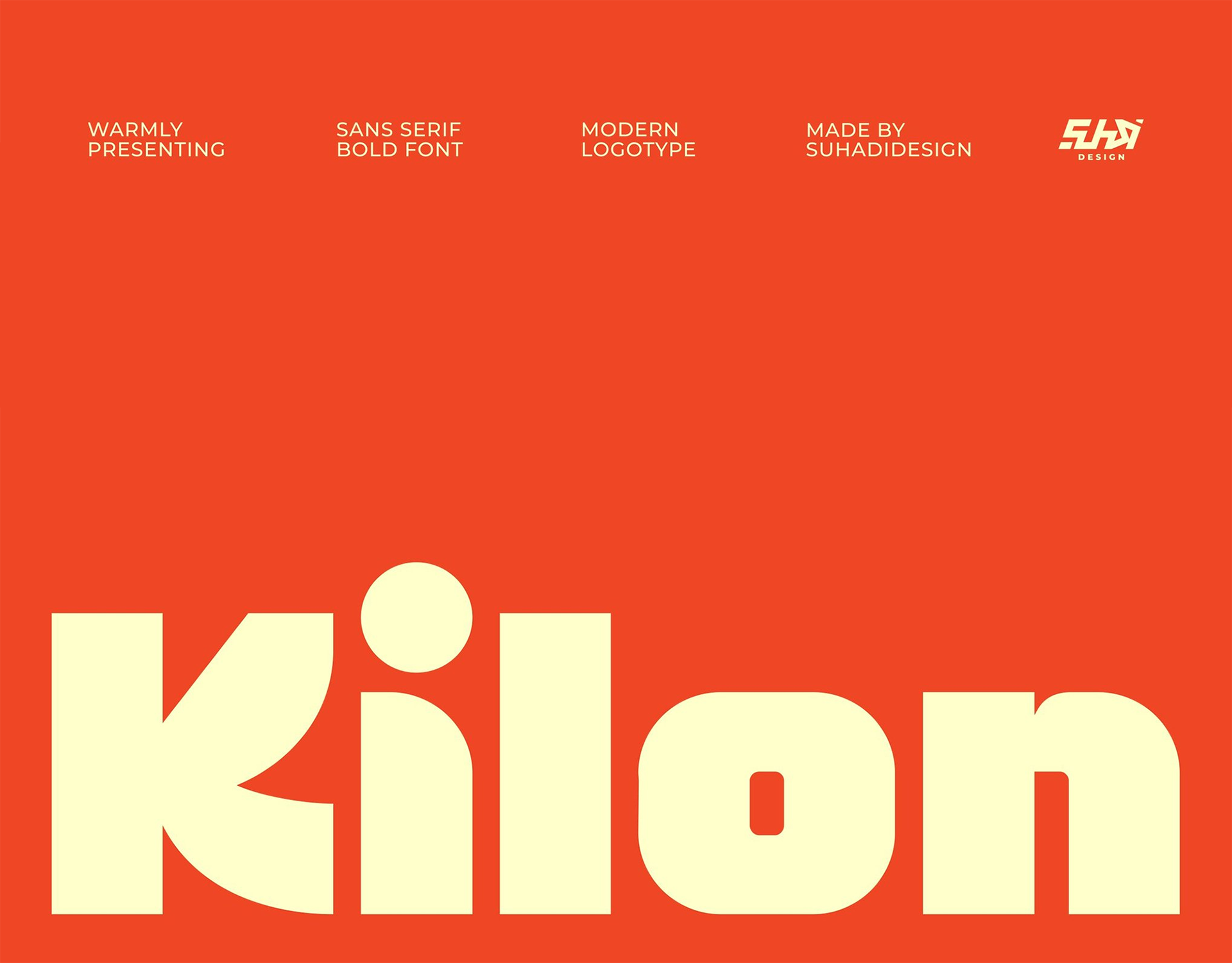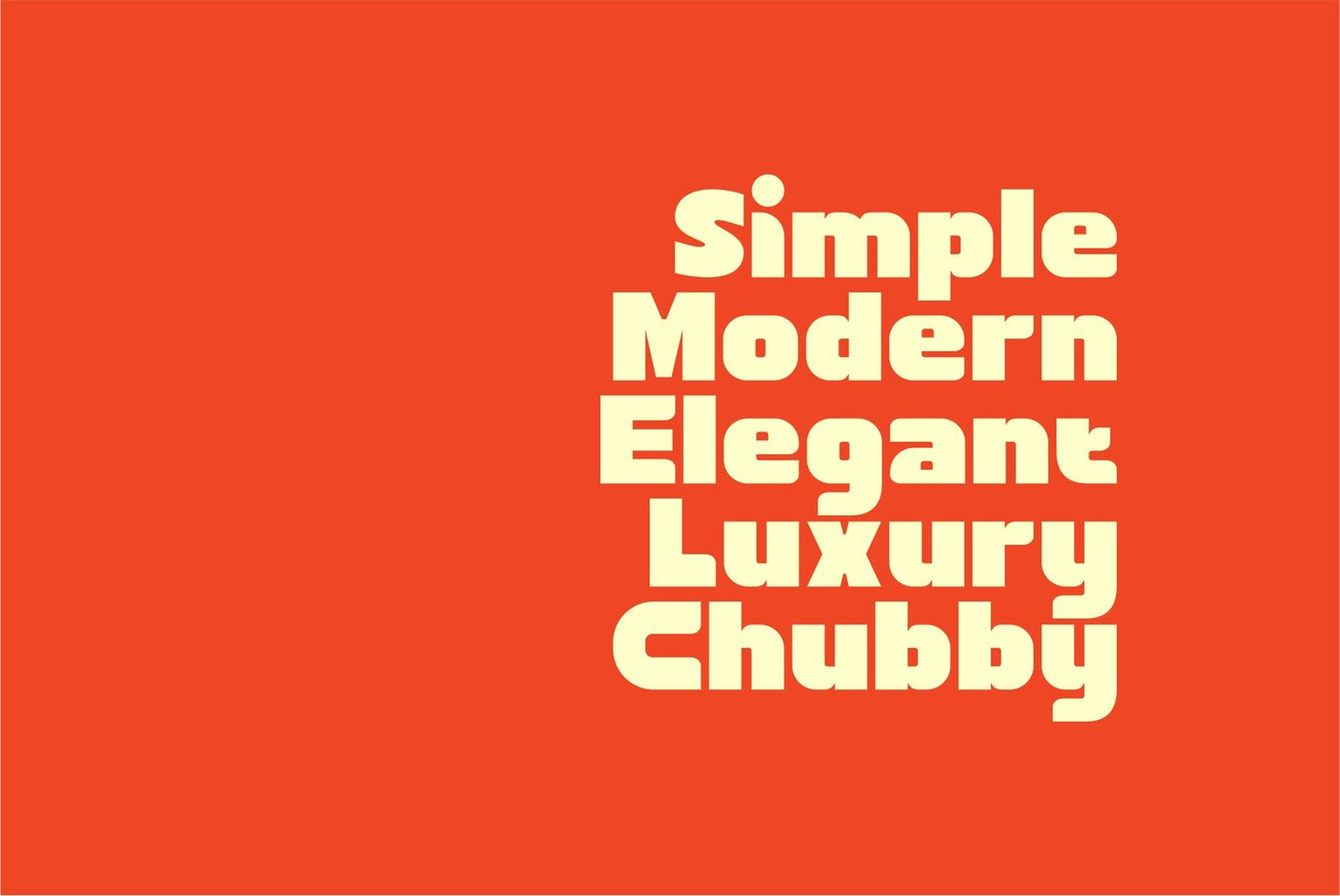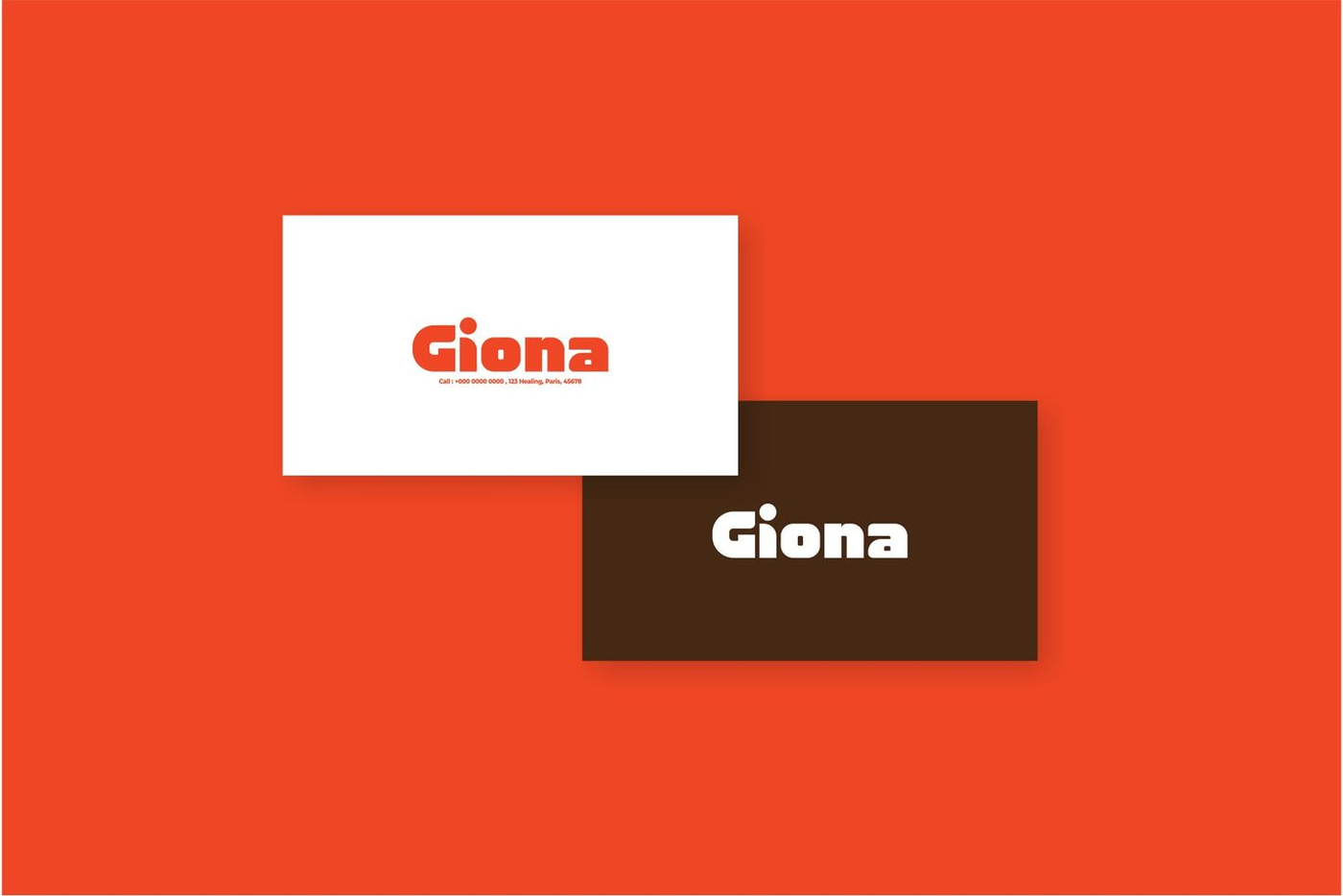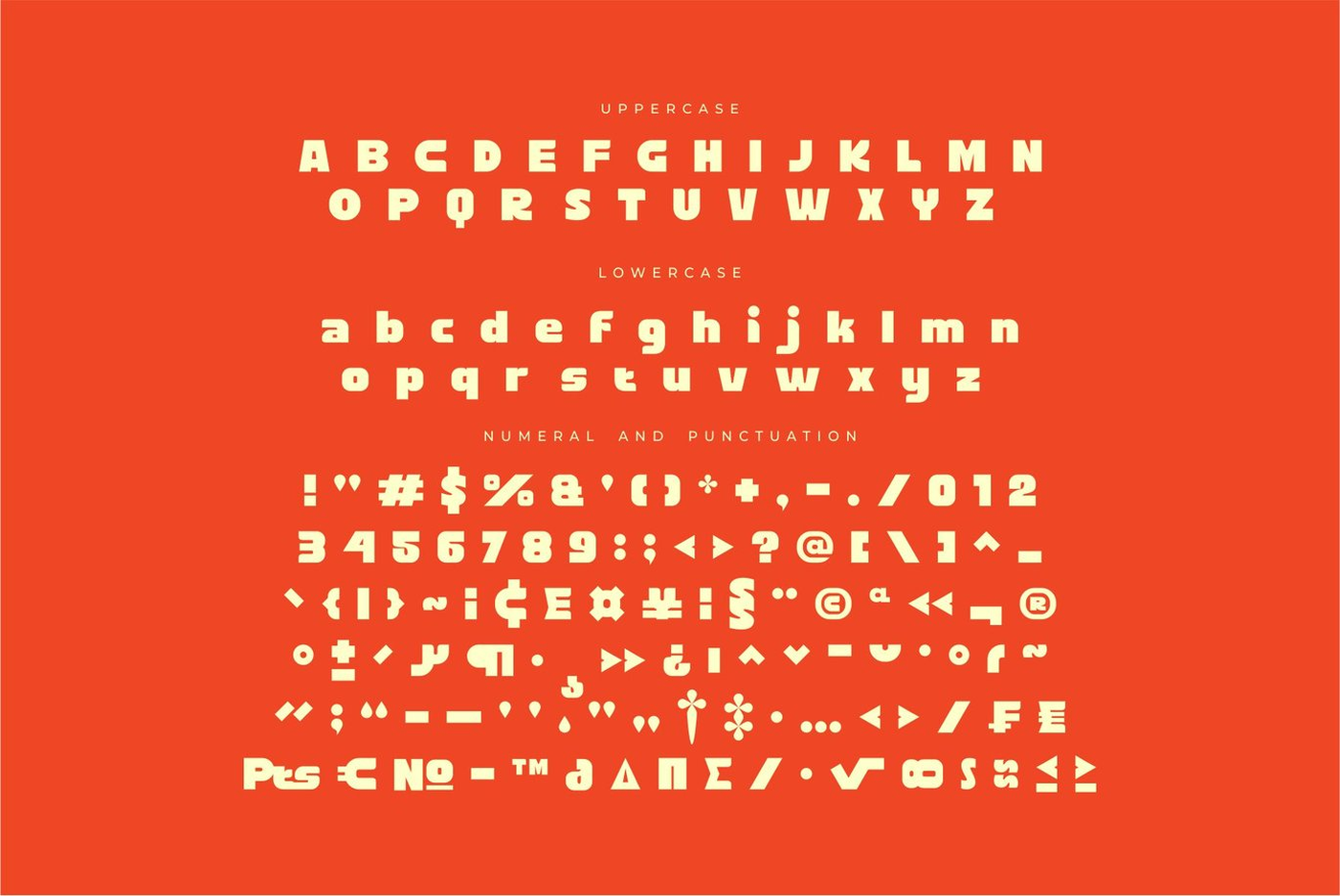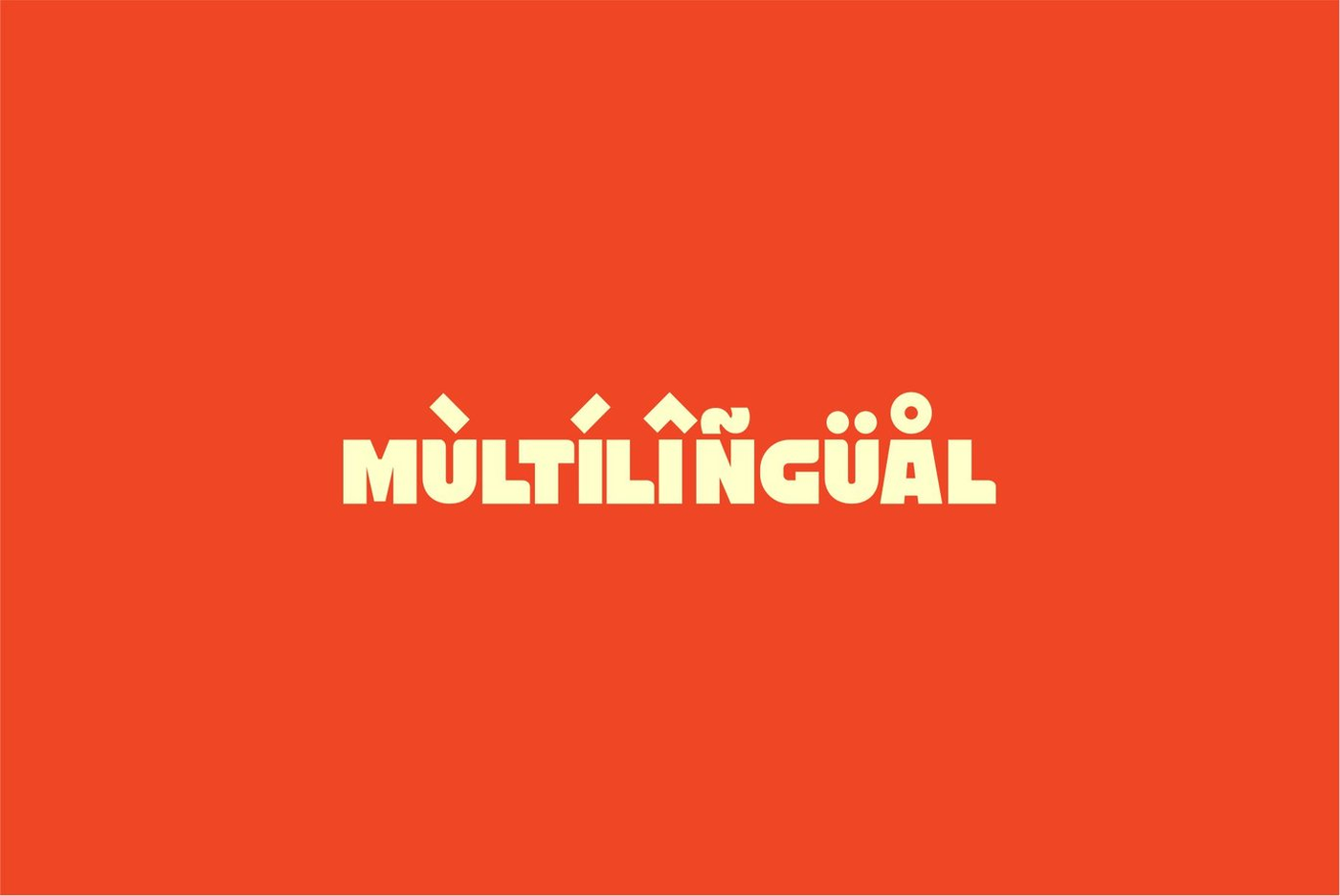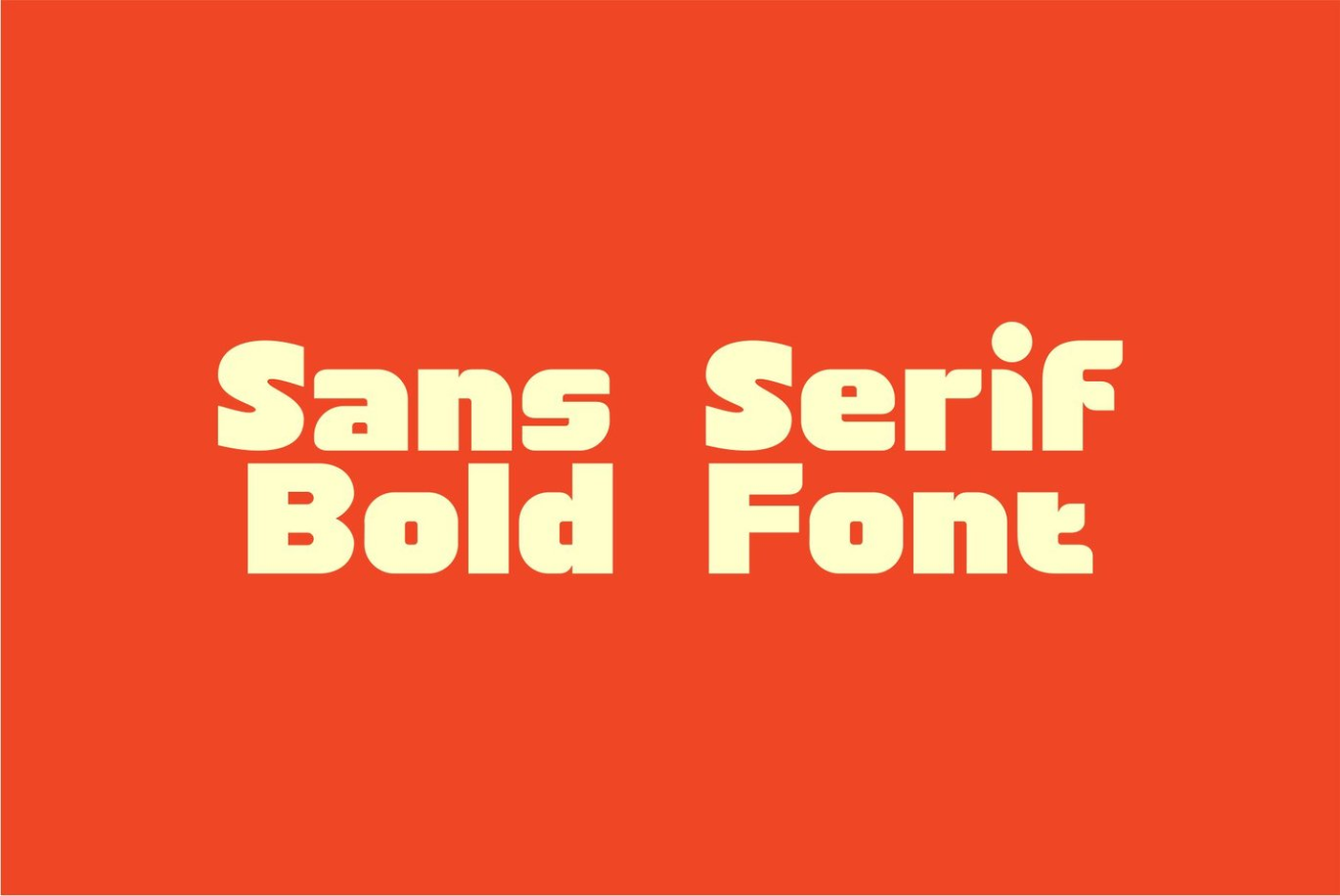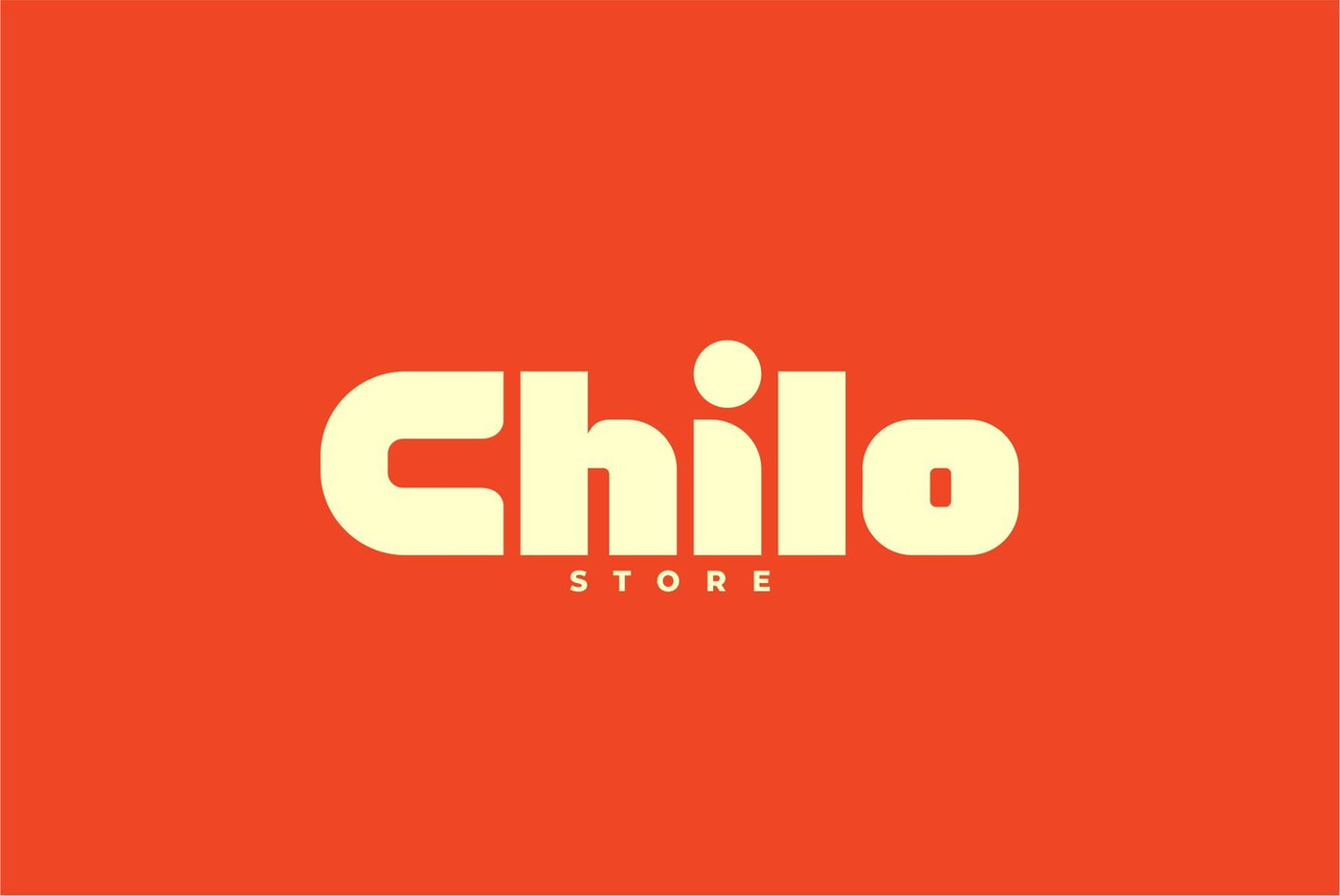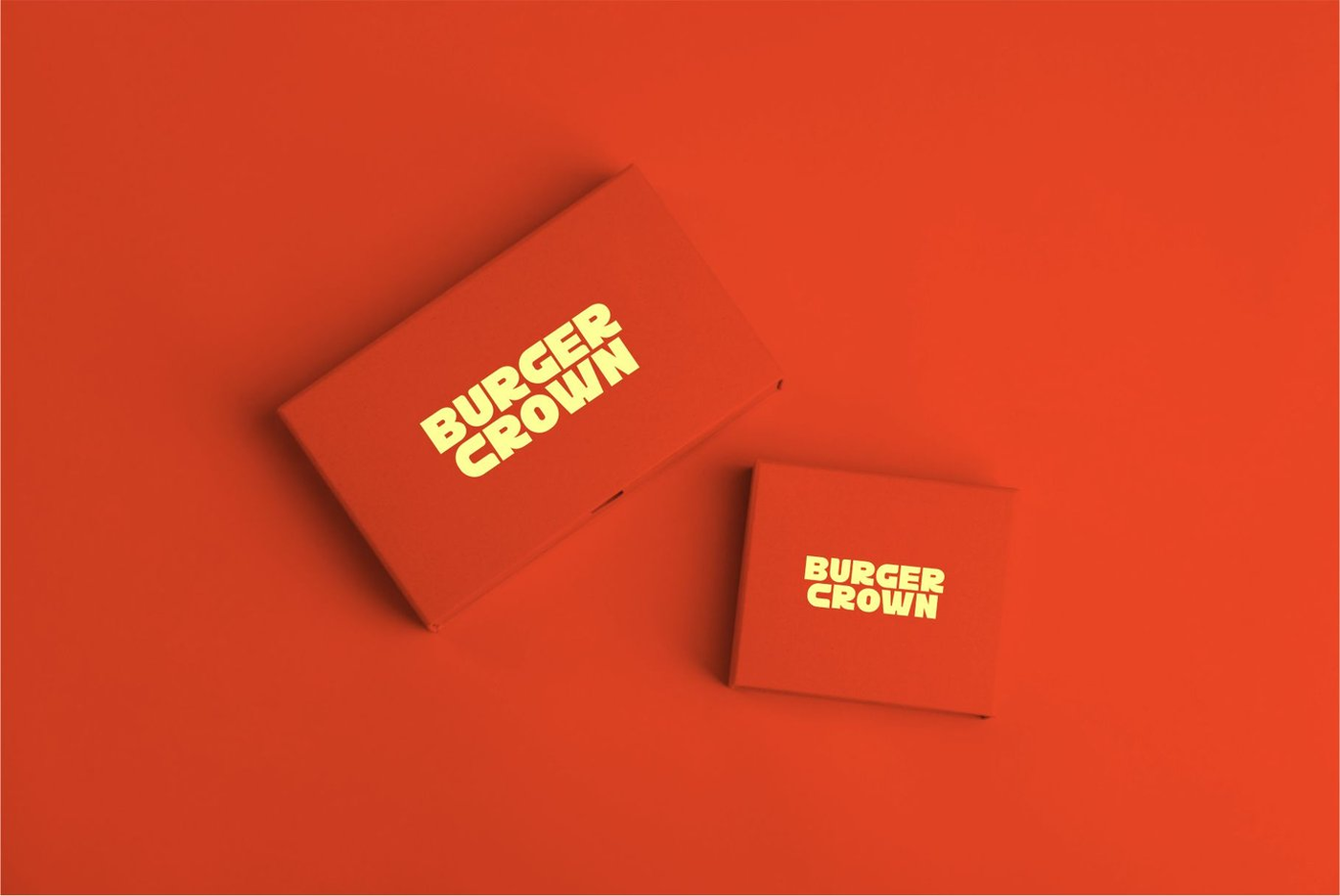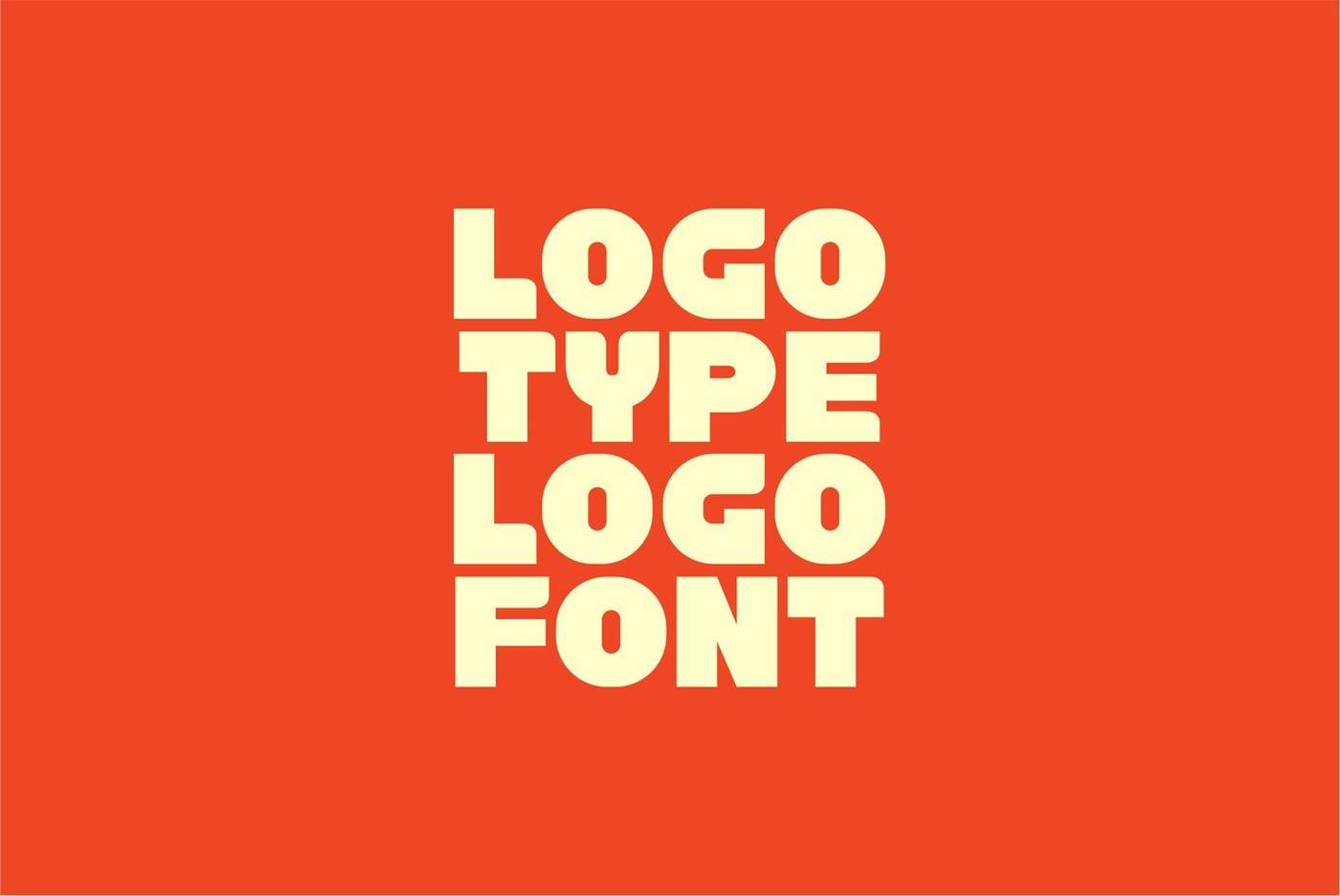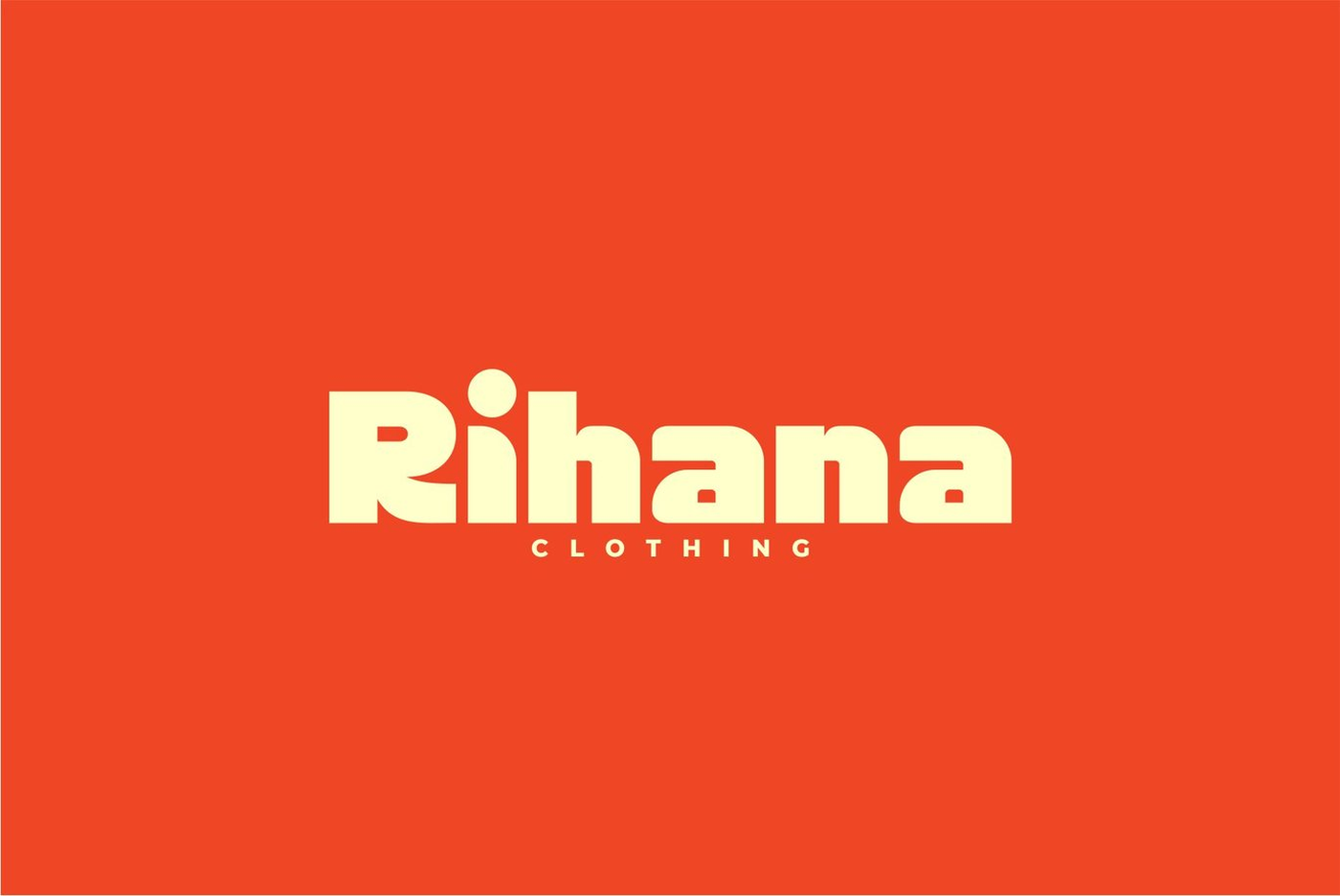
Kilon - Bold Display Font
Kilon is a modern sans serif font, hoping to become a market favorite. We've kept this font elegant, classy, modern, stylish, contemporary, and easy to use. Kilon is a great choice for magazines, book covers, shopping bags, packaging, logos, labels, fashion, posters, banners, bags, branding, fashion, brand names, branding, quotes, and other projects. Kilon is here to take your designs to the next level. Kilon's font style will make you love design and take advantage of the cool design results of this font. Stay tuned for our font updates :)